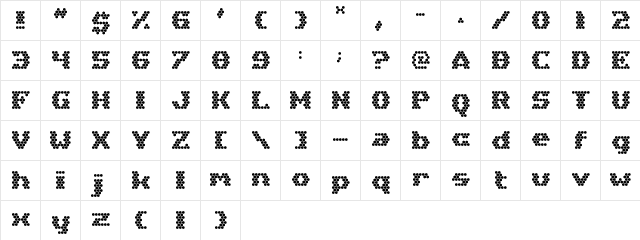
Hex Girlfriend Regular
| Designer | Andrew McCluskey |
Design Context for Hex Girlfriend Typeface
Hex Girlfriend is a composed and adaptable typeface that performs quietly and consistently across a wide range of design contexts.